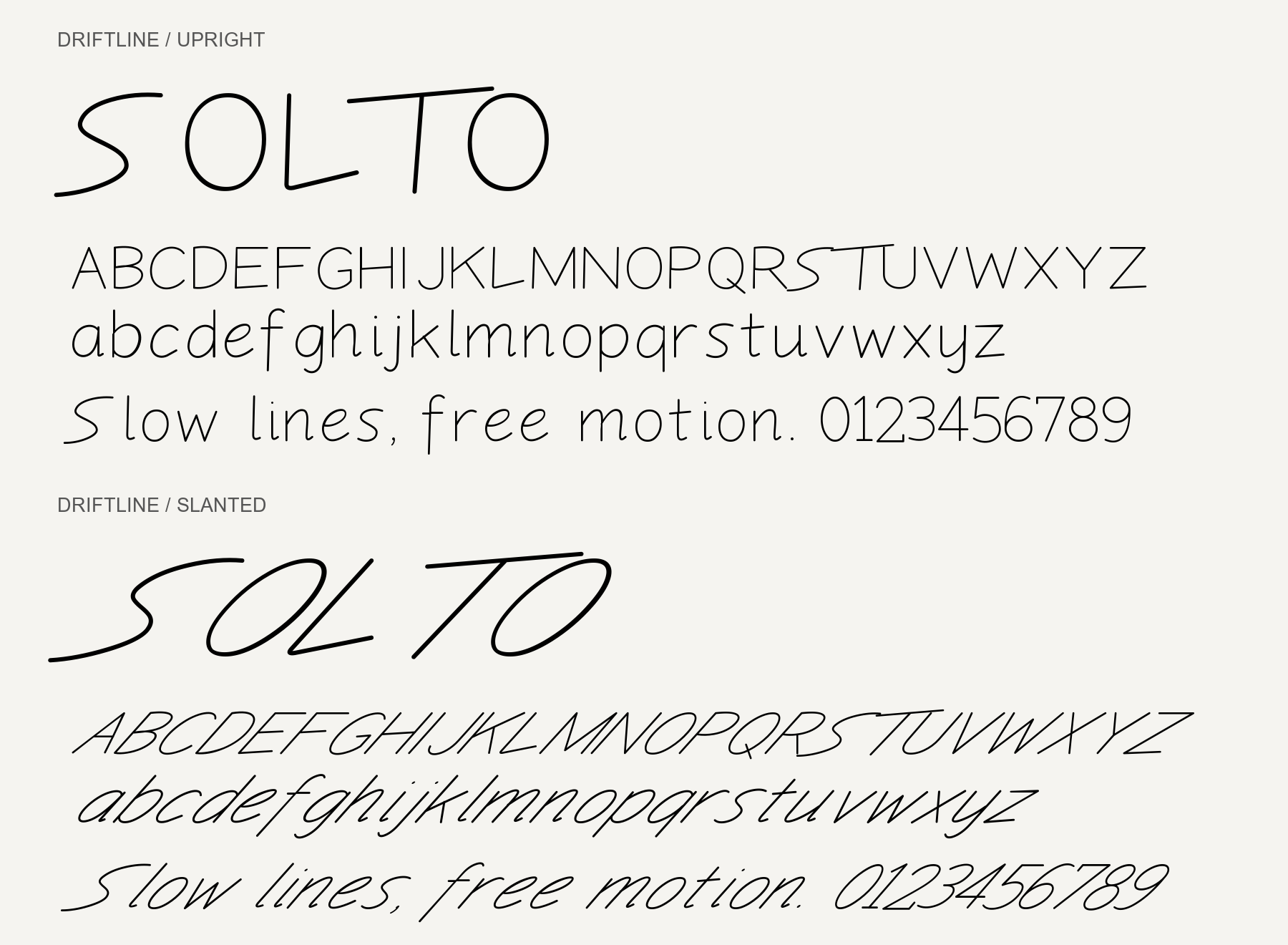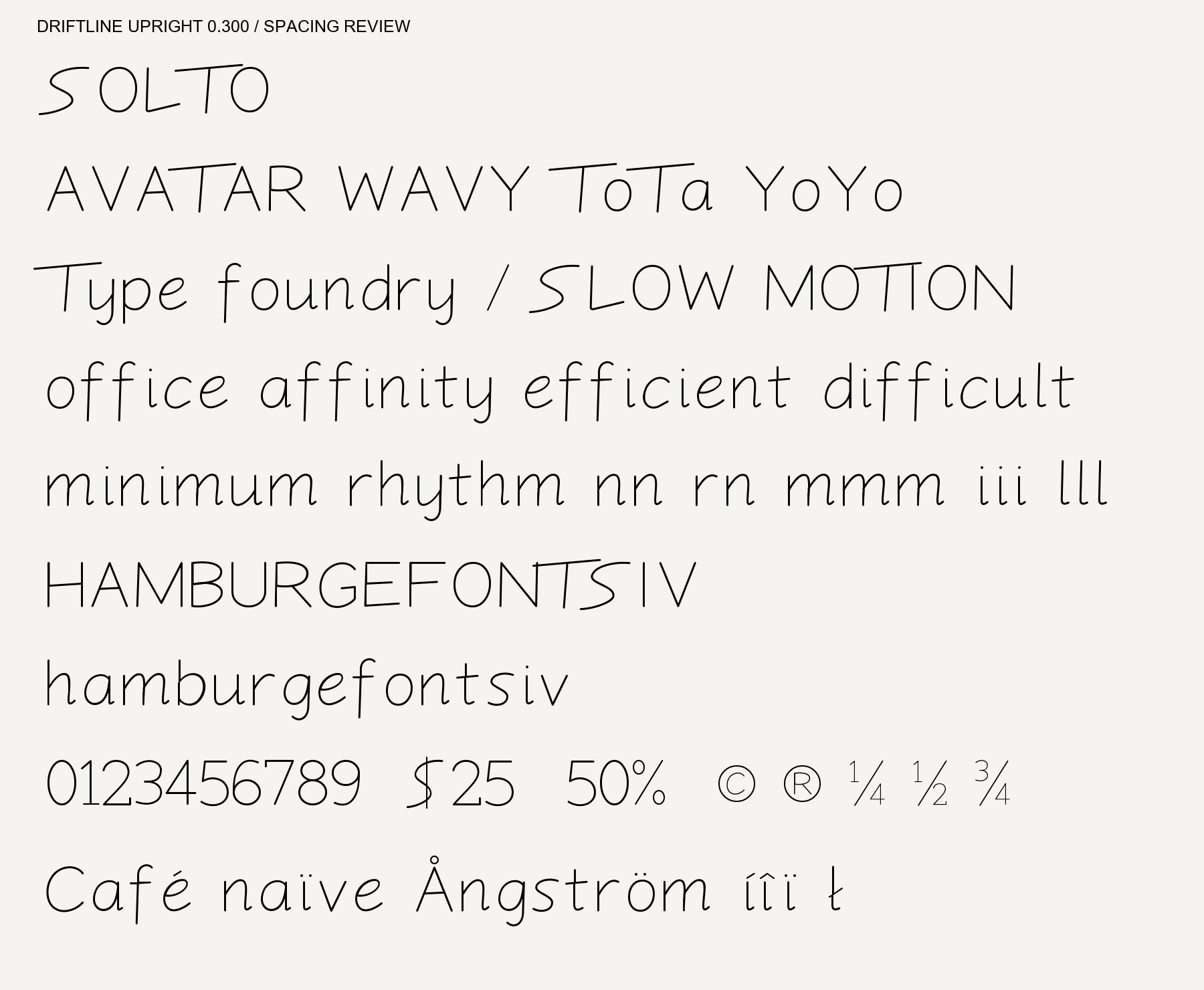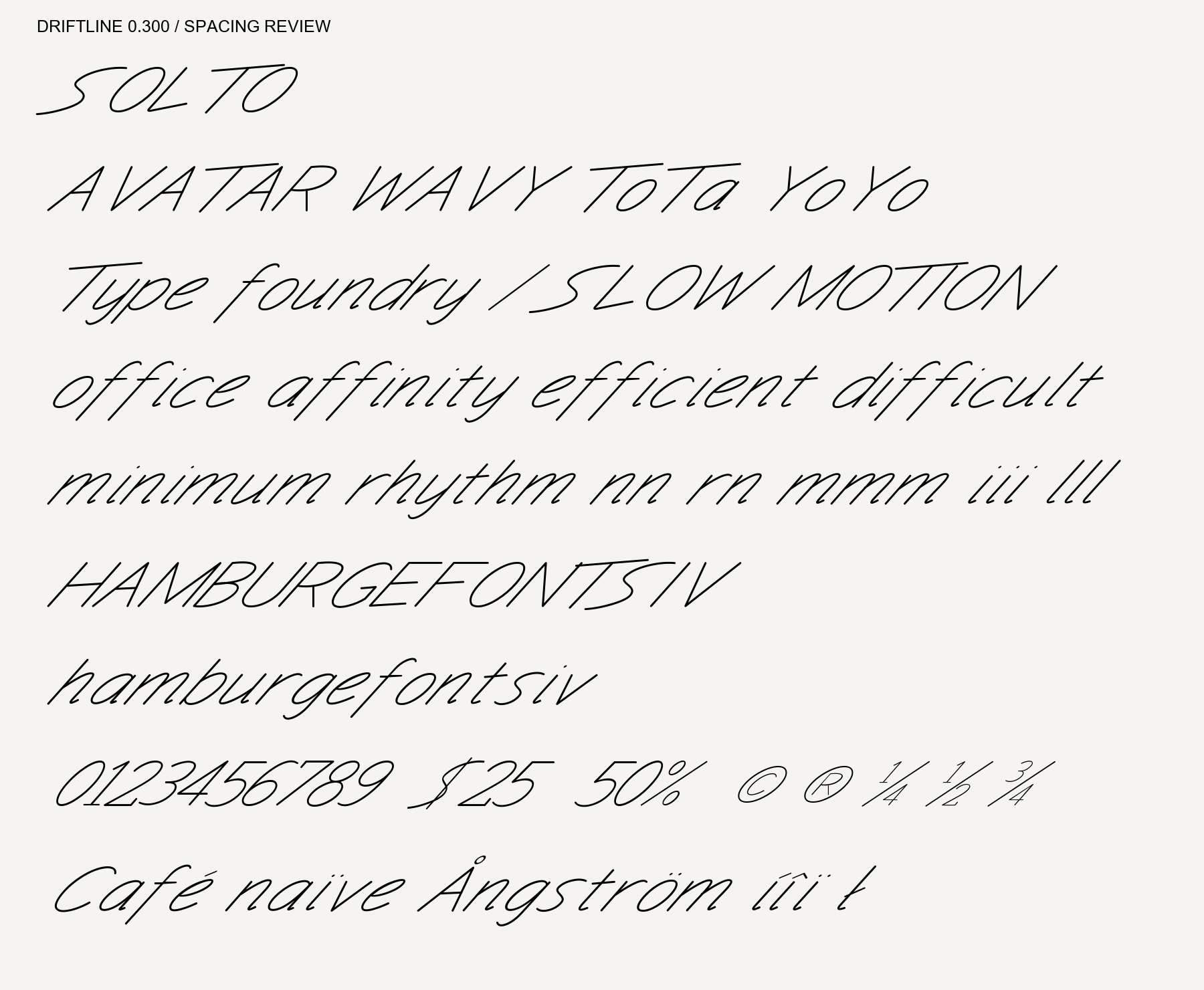
Driftline Upright and Slanted; both styles in one download.
Driftline is a light monoline handwriting family with rounded ends, flowing S forms and an extended T crossbar. One download includes both Upright and Slanted styles in TTF and WOFF2 formats, plus SIL OFL 1.1. Each style contains 330 encoded Latin characters, figures and symbols (spaces included), 331 glyphs including .notdef. Version 0.400. Spacing is adjusted separately for each style. Designed for larger headlines and short expressive phrases; no Hangul or contextual joining ligatures. The live text preview uses Slanted; artwork compares both styles. Editing-app installation and all browser combinations have not been verified.